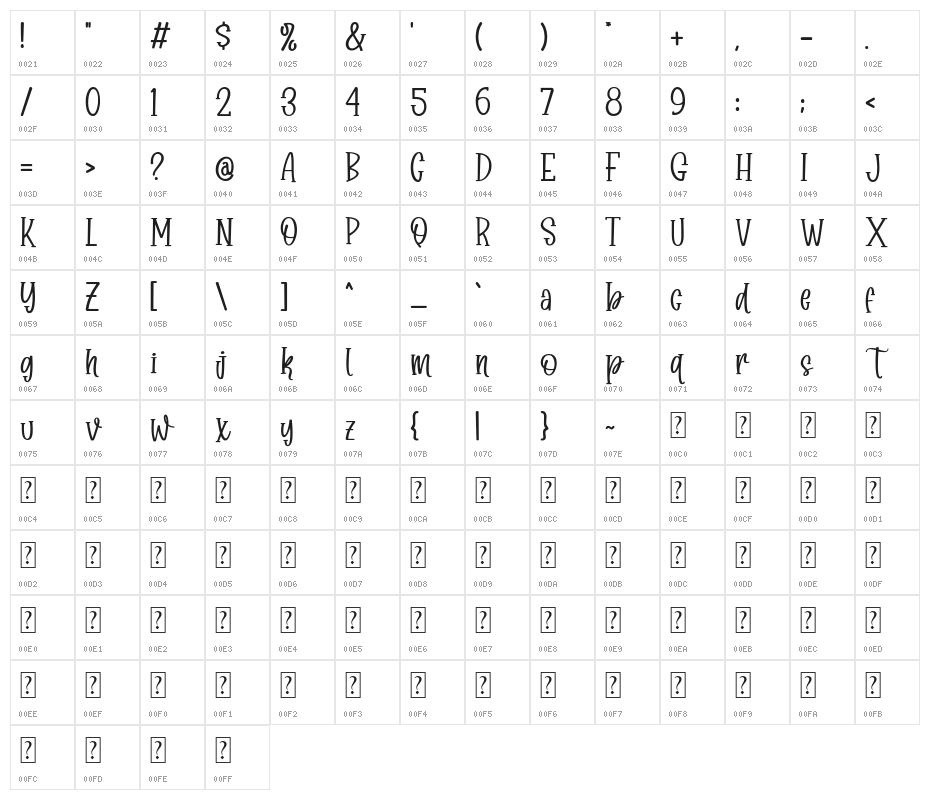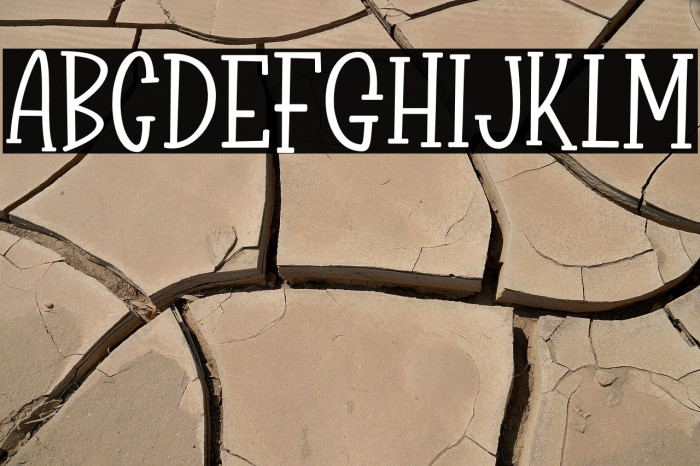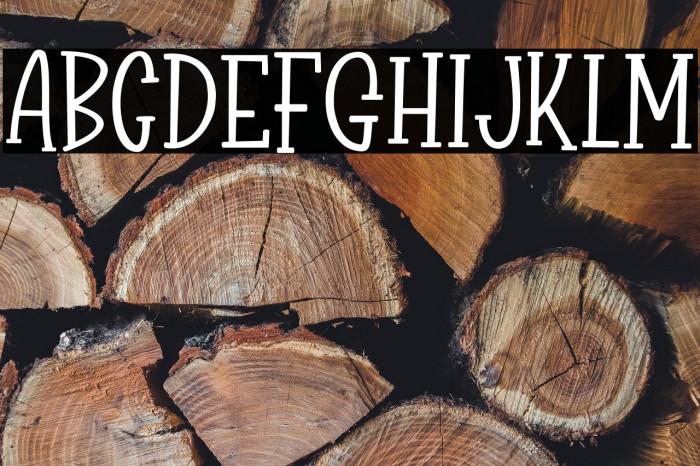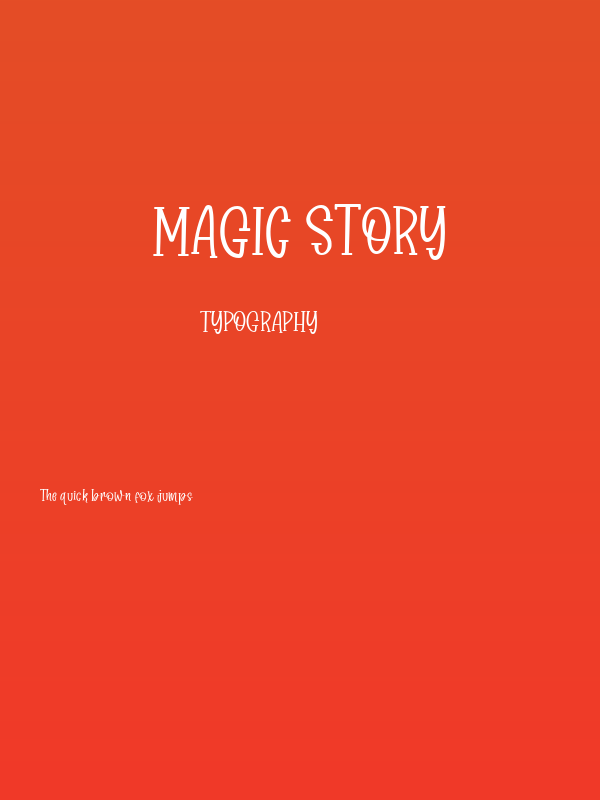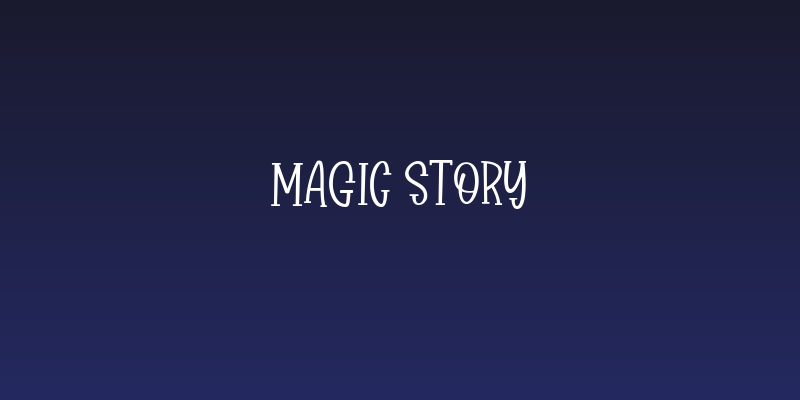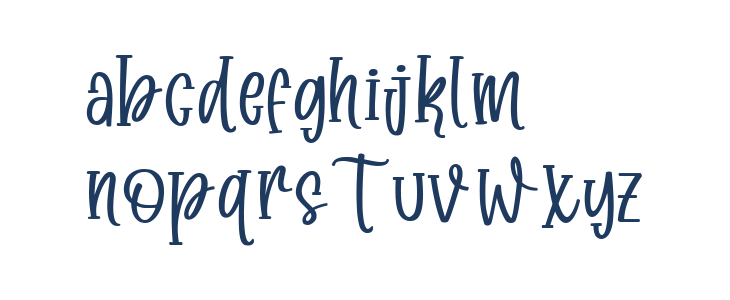
Magic Story Font
Magic Story Description
This font features a whimsical and playful design, characterized by its tall, narrow letters with a slight slant, giving it a handwritten feel. The uppercase letters are bold and prominent, while the lowercase letters have a more casual and flowing appearance. The numbers are consistent with the overall style, maintaining the playful and slightly quirky aesthetic. Special characters are creatively integrated, adding to the font's charm. The strokes are moderately thick, providing good readability while retaining a fun and informal vibe.
| Width | Condensed |
| Overall Style | Playful |
| Use Case | Headlines, Logos, Creative projects |
| Proposed Projects | Ideal for children's books, greeting cards, playful branding, and creative projects. |